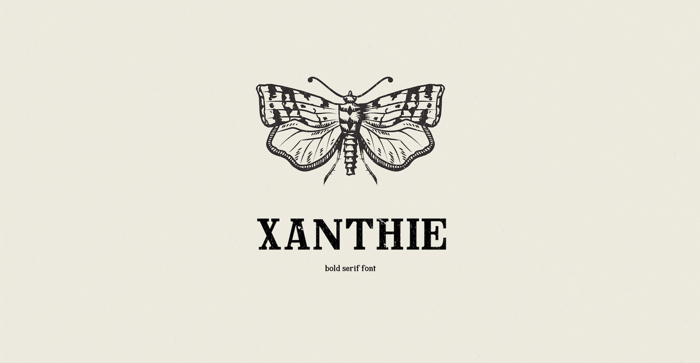
Xanthie Font
Xanthie is a serif font with a nostalgic feel. It is inspired by a public domain vintage French alphabet learning book for children. Xanthie is a font suitable especially for designs needing big headings.